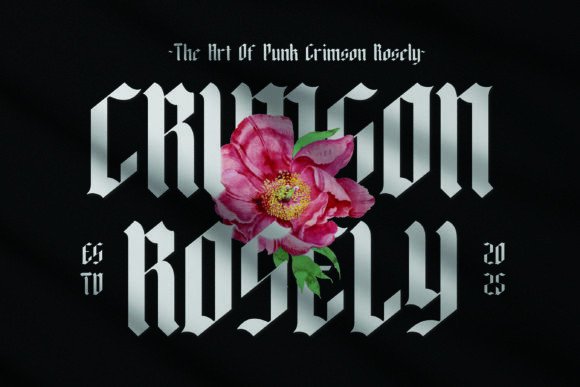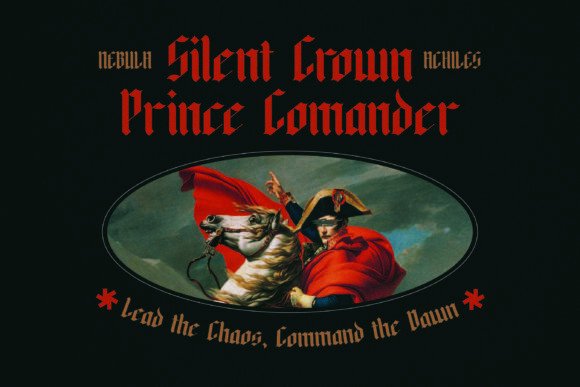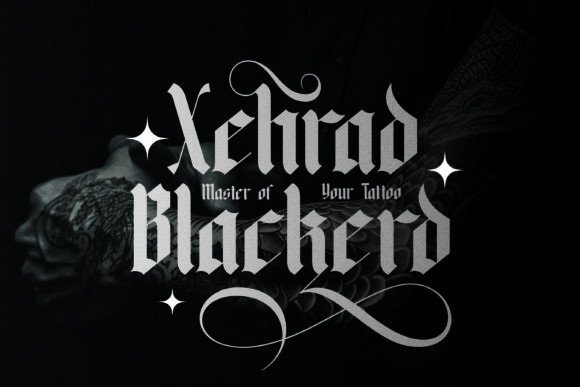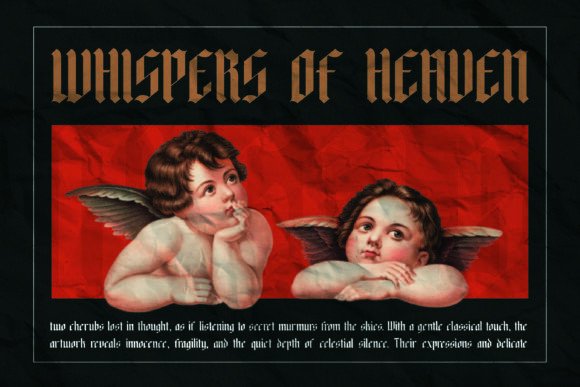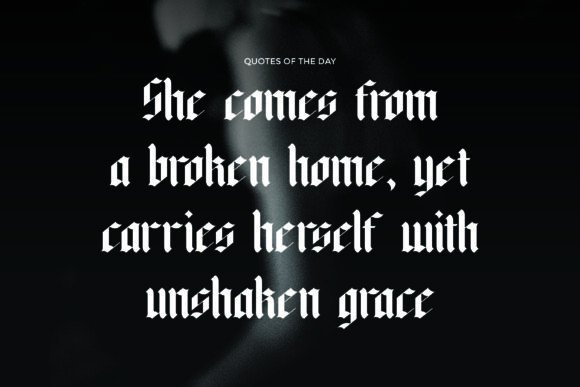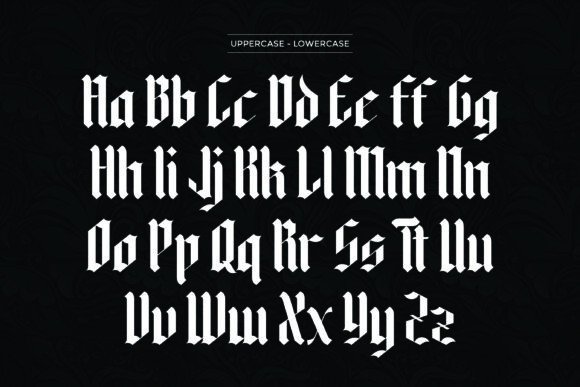
Introduction to Kalthorne Font
Have you ever found yourself stuck in a creative rut, searching for that perfect font to elevate your project and leave a lasting impression? I know I have. And then, one day, I stumbled upon the Kalthorne Font – a stunning Blackletter typeface that breathed new life into my designs. Its bold and expressive nature made me realize that sometimes, all it takes is one high-quality font to transform a project from ordinary to extraordinary.
As a designer, having access to a reliable design resource like Kalthorne Font can be a game-changer. Not only is it free to download, but its versatility makes it perfect for a wide range of creative projects, from logos and tattoos to band posters and apparel. With its transparent background and intricate strokes, Kalthorne Font adds a touch of sophistication to any design, making it a valuable asset for any designer looking to take their work to the next level.
Key Features of Kalthorne Font
- High-quality font design with a unique, elegant style suitable for creative projects.
- Features a transparent background, allowing for seamless integration with any design or image.
- Comes in a range of sizes, from 12pt to 72pt, making it versatile for various design applications.
- Designed with a high resolution of 300 DPI, ensuring crisp and clear text even at large sizes.
- Perfect for use in logos, branding materials, and other creative projects where a touch of elegance is desired.
Honest Review: Kalthorne Font
As a designer, I’m always on the lookout for high-quality fonts that can elevate my creative project. I recently stumbled upon the Kalthorne Font, and I must say, it’s been a great addition to my design resource library.
What works well with the Kalthorne Font is its versatility. It comes in a range of weights and styles, making it perfect for both bold and elegant designs. I love how it looks on a transparent background, adding a touch of sophistication to my designs. ✨
- High-quality design with crisp lines and smooth curves
- Wide range of weights and styles to choose from
- Works well on transparent backgrounds
However, I do have some minor issues with the Kalthorne Font. ⚠️ It can be a bit too ornate for some designs, and the font size can be difficult to read at smaller sizes. Additionally, the font doesn’t come with a comprehensive user manual, which can be a bit confusing for beginners.
Overall, I’m impressed with the Kalthorne Font. While it has some limitations, its high-quality design and versatility make it a valuable resource for any designer. I highly recommend it for any creative project that requires a touch of elegance and sophistication.
Tips for Getting the Most Out of Kalthorne Font
Experiment with different font sizes, colors, and styles to find the perfect combination for your design project. Use the font in conjunction with other design elements to create a visually appealing and cohesive look.
Kalthorne Font is suitable for a variety of creative projects, including:
- Logo creation